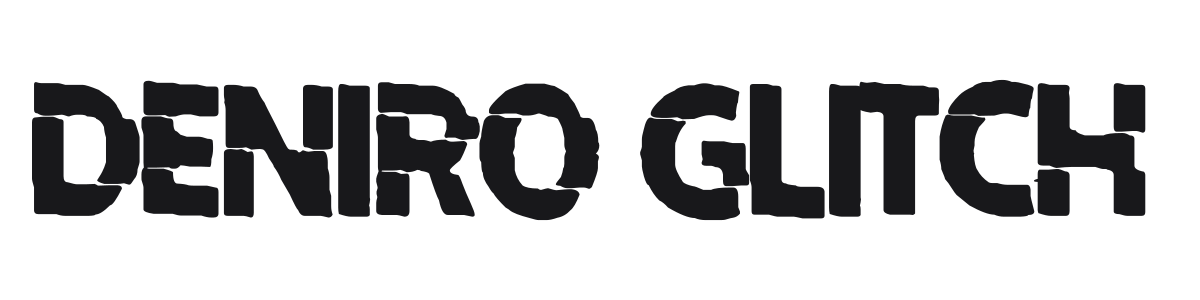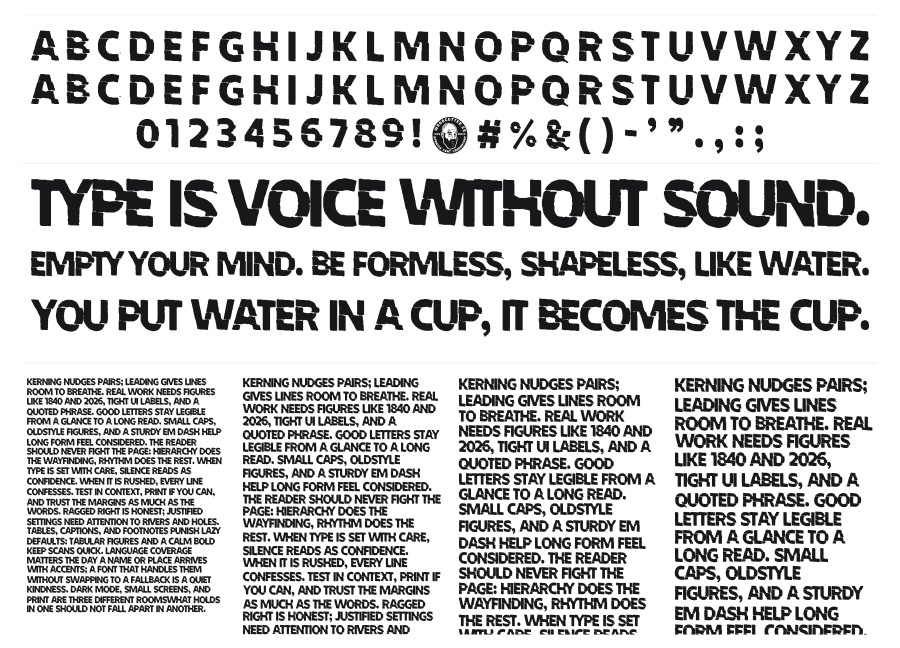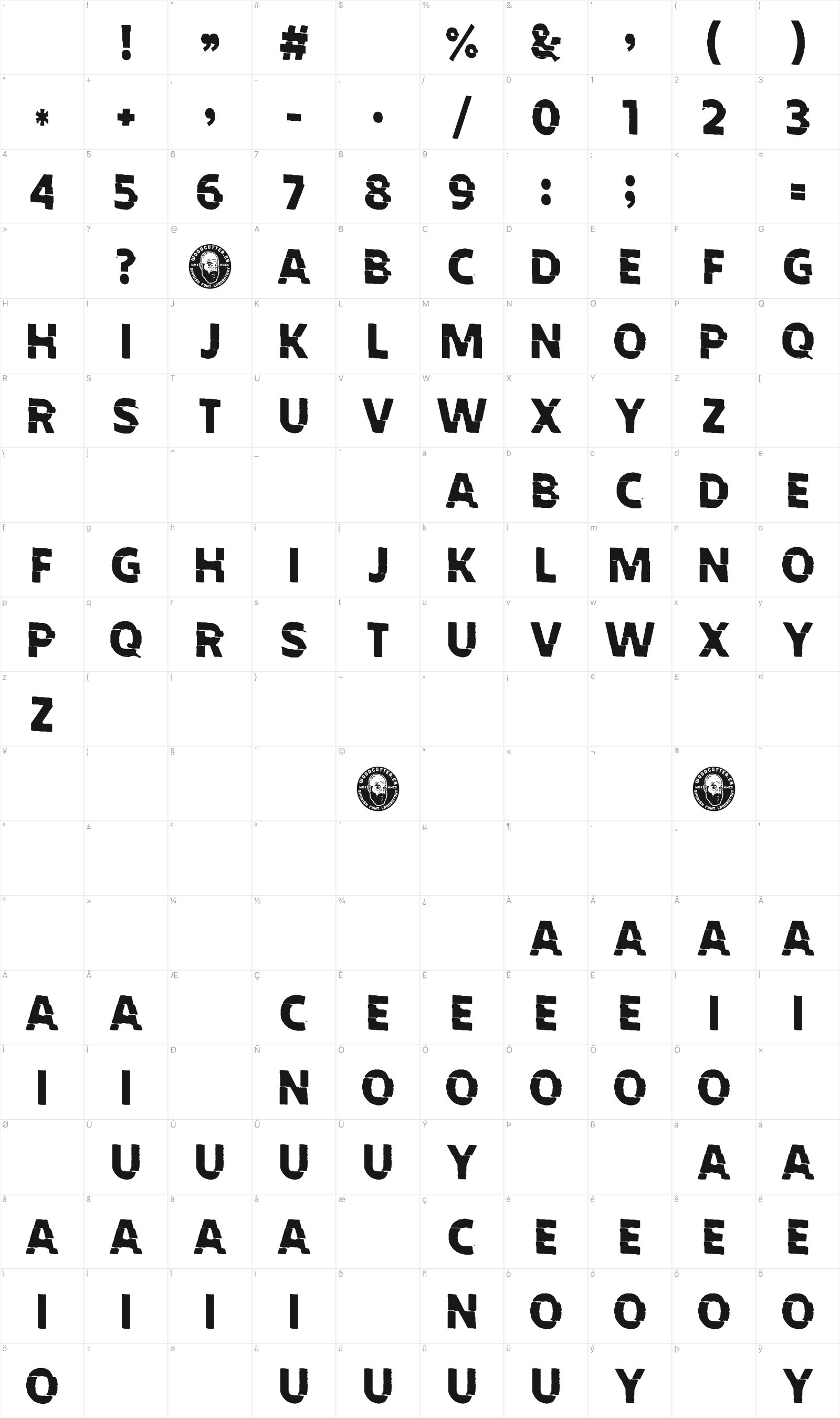
Deniro Glitch
Deniro Glitch is a heavy display sans by Woodcutter with bold characters sliced and fragmented as if hit by digital corruption or physical damage. The glitch treatment is thorough and consistent, giving every letter a raw, confrontational energy. Built for posters, album art, and anywhere a headline needs to feel like it's breaking apart.